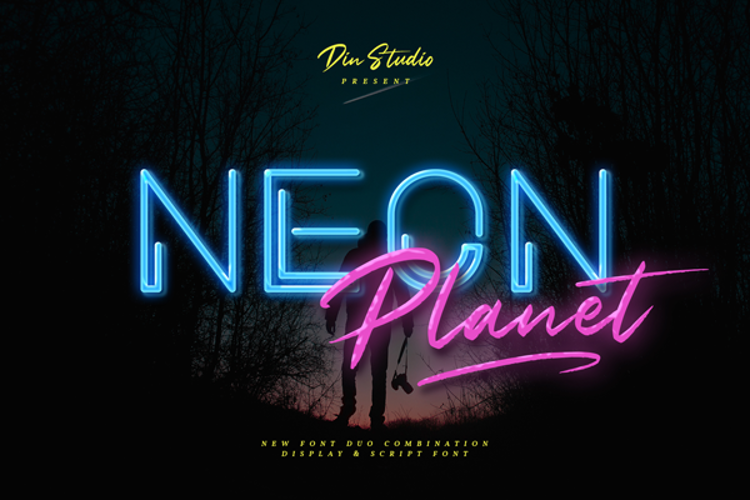
Neon Planet Font
About Neon Planet Font
Neon planet is a modern and futuristic font duo which combined with neon shape design and brush textured handwriting that will make your design projects more powerful. It is suitable for any projects that need Retro, Modern, and Casual Vibes such as brandings, advertisements, merchandise, logos, posters, and much more!
Features include:
• Numerals and Punctuations